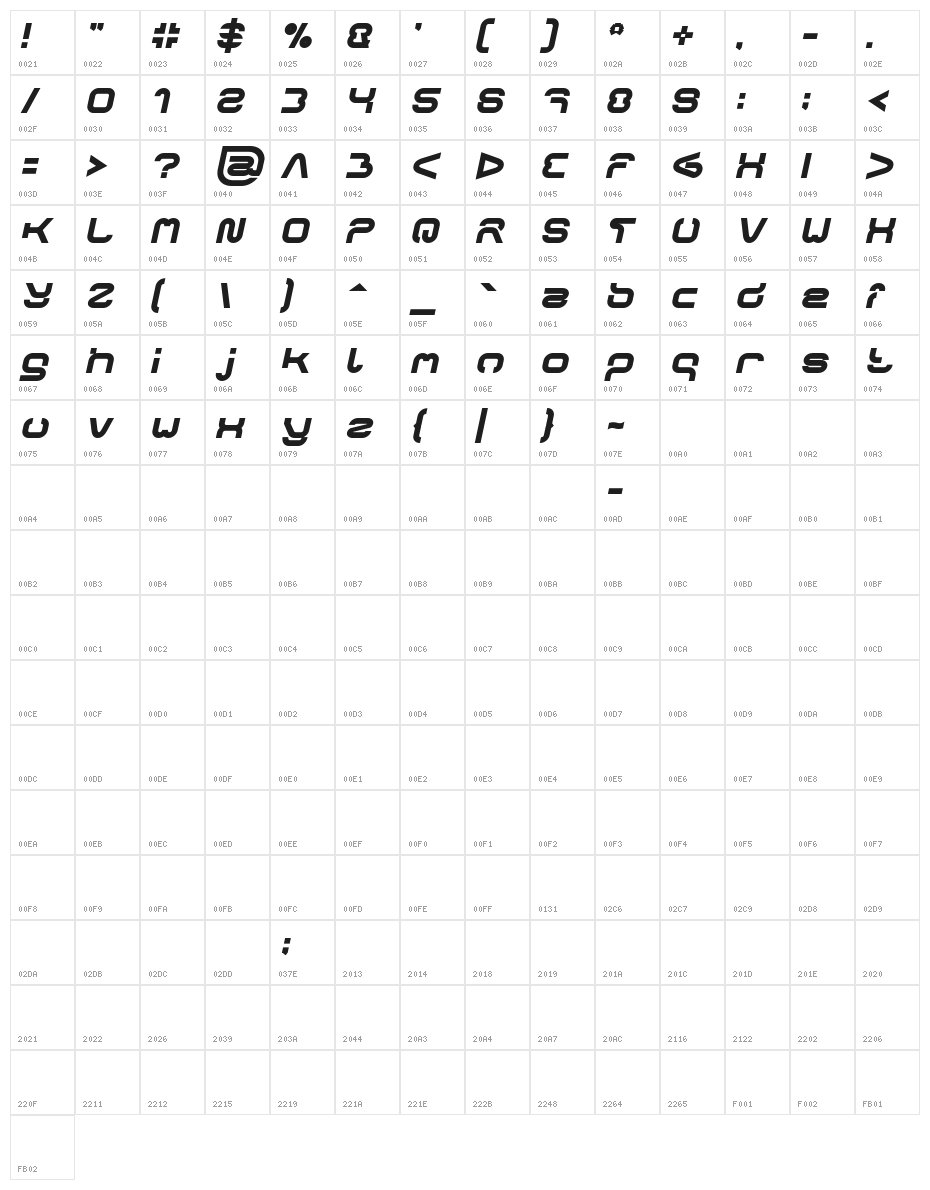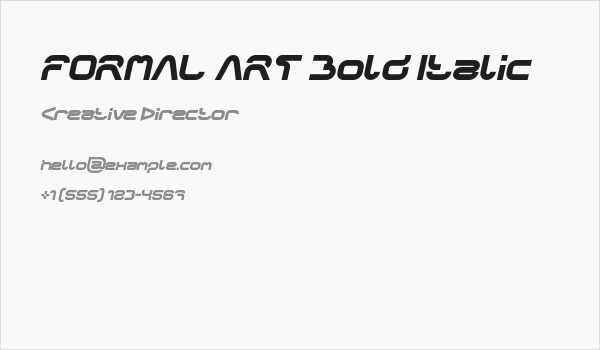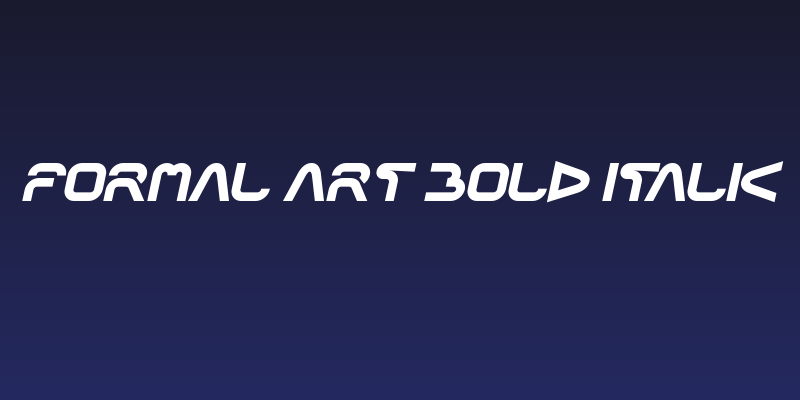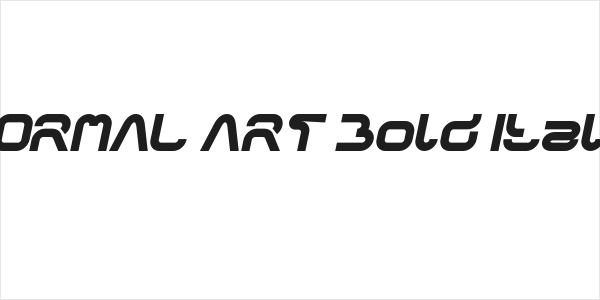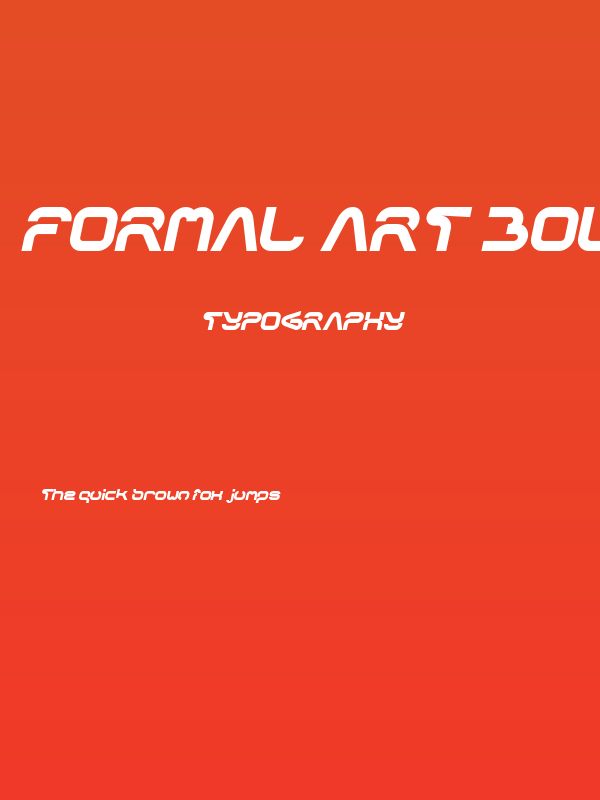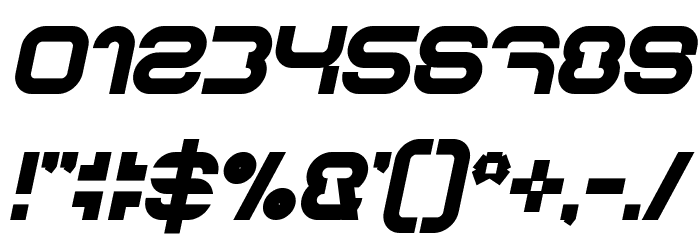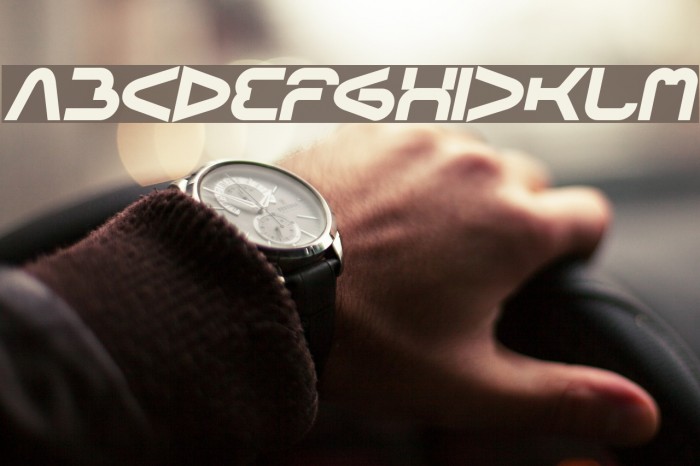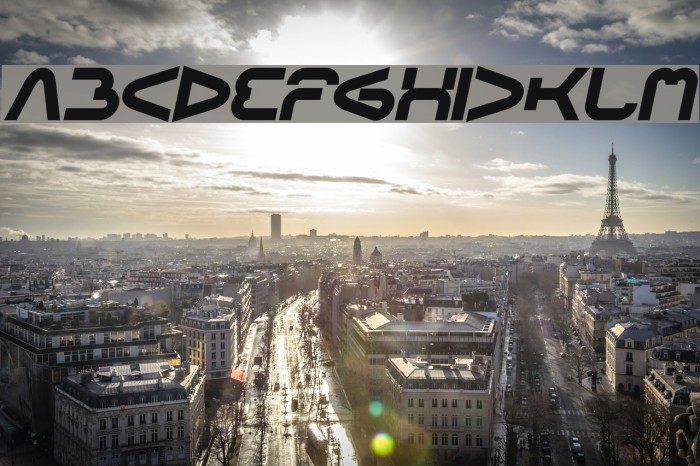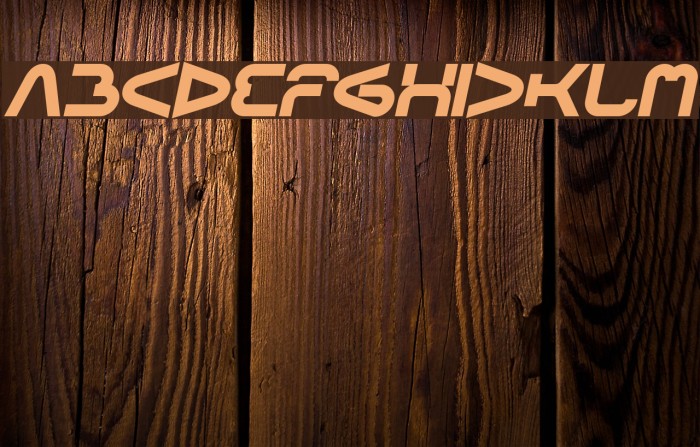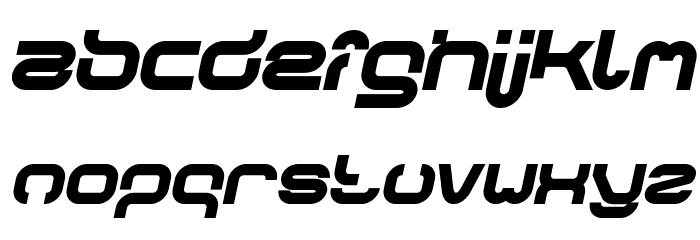
FORMAL ART Bold Italic Font
This font exhibits a bold and italicized style with a futuristic and geometric design. The characters are crafted with sharp angles and smooth curves, giving it a dynamic and modern appearance. The uppercase and lowercase letters maintain a consistent style, with a unique approach to each character that enhances readability while maintaining an artistic flair. The numbers and special characters follow the same design principles, ensuring uniformity across all glyphs. This font is ideal for projects that require a bold statement and a contemporary look.
| Proposed Projects | Ideal for sci-fi themed designs, modern branding, technology-related projects, and eye-catching headlines. |